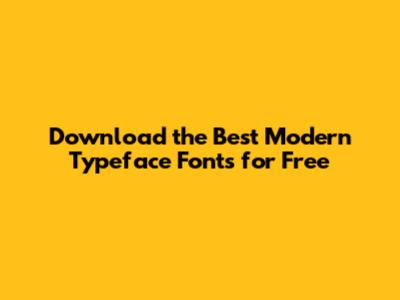
Download The Best Modern Typeface Fonts For Free
Hey guys! Are you on the hunt for some amazing fonts to spice up your designs? Well, you've come to the right place. Today, we're diving headfirst into the world of modern typeface fonts, and the best part? You can download them all for free! I'm talking about sleek, stylish fonts that can elevate any project, whether it's a website, a poster, a logo, or even just a cool personal project. We'll explore where to find these gems, what makes a font "modern," and how to use them to create stunning visuals. Get ready to transform your designs with some of the coolest fonts around. Let's get started!
What Makes a Font "Modern"?
So, what exactly is a modern typeface? It's not just a buzzword, I promise! Modern fonts typically embody a few key characteristics that set them apart from the classic serif or the more playful script fonts. They often lean towards a minimalist aesthetic, embracing clean lines, geometric shapes, and a sense of sophistication. Imagine fonts that look perfect for both a tech startup's website and a high-fashion magazine – that's the kind of versatility we're talking about.
Characteristics of Modern Typefaces
• Geometric Shapes: Many modern fonts draw heavily on basic geometric forms like circles, squares, and triangles. This gives them a clean, structured appearance. Think about the iconic "Futura" font – it's a prime example of this. The roundness of the letter 'O', for instance, is perfectly circular. This precision is a hallmark of modern typography.
• Sans-Serif Styles: While not a strict rule, most modern fonts are sans-serif. This means they lack the small decorative strokes (serifs) at the ends of the letters. Sans-serif fonts often appear cleaner and more contemporary, making them ideal for digital displays and modern design principles. This is because they tend to be highly legible at various sizes and on different screens. They often appear to be more friendly and welcoming.
• Neutrality and Versatility: Modern fonts strive for a sense of neutrality, allowing them to work well in a wide range of applications. They aren't tied to a specific era or style, which gives them staying power. This makes them incredibly versatile. You can use them for everything from headings and body text to logos and branding materials. These fonts are made to easily adapt to any context.
• Emphasis on Legibility: Even with their minimalist designs, modern fonts prioritize legibility. They are designed to be easily readable at various sizes and on different devices. This is crucial for user experience, especially in digital design. The focus is on clarity and the readability of the content, which is a key priority.
These qualities combine to create fonts that are not only visually appealing but also highly functional. They're designed to communicate clearly and effectively in a variety of contexts, making them a go-to choice for designers and creatives today. Now, let's explore where you can find these awesome fonts!
Where to Find Free Modern Typeface Fonts
Top Websites for Free Font Downloads
• Google Fonts: This is a fantastic resource. Google Fonts offers a massive library of free, open-source fonts. The site is super easy to use, with filters to help you find exactly what you're looking for. You can preview fonts, see how they look in different sizes and styles, and download them with just a few clicks. The great thing about Google Fonts is that all the fonts are web-optimized, so they load quickly and look great on any website.
• DaFont: DaFont is another popular choice. It has a vast collection of fonts, including a dedicated section for modern fonts. The site is a bit more user-friendly, and offers different categories to help narrow down your search. You can easily find fonts based on their style, theme, or designer. Before downloading, make sure to check the license information carefully, as some fonts may have restrictions.
• Font Squirrel: Font Squirrel curates a selection of high-quality, free fonts. They are known for their "handpicked" fonts, ensuring that the fonts are well-designed and usable. All fonts on Font Squirrel are licensed for commercial use, making it a great option for professional projects. They also offer a "Font Identifier" tool, where you can upload an image of a font and the site will try to identify it for you. This is an awesome tool to have.
• BeFonts: A site that features a collection of free fonts, providing another source for finding modern typefaces. Similar to DaFont, it is important to check the license for usage rights.
These sites are great starting points, but always explore beyond these recommendations. Searching for "free modern fonts" online can lead you to even more resources and hidden gems. Just be cautious and double-check the licensing details.
Conclusion: Embrace the Modern Font Revolution!
Alright, guys, we've covered a lot of ground today! You now have a solid understanding of modern typefaces, where to find them, how to choose the right ones, and how to use them effectively in your designs. Remember, the best part is that you can get these fonts for free and elevate your projects. Go forth and experiment with these amazing fonts, and don't be afraid to try new things. Have fun creating, and enjoy the modern font revolution!